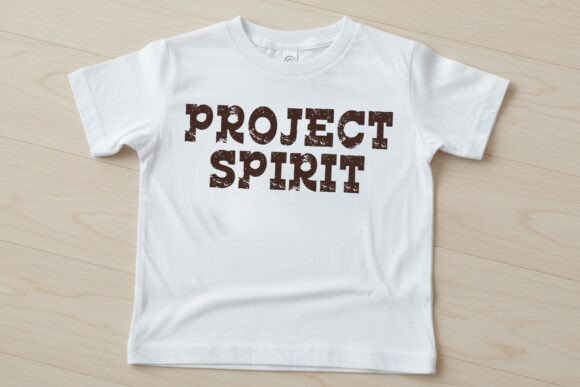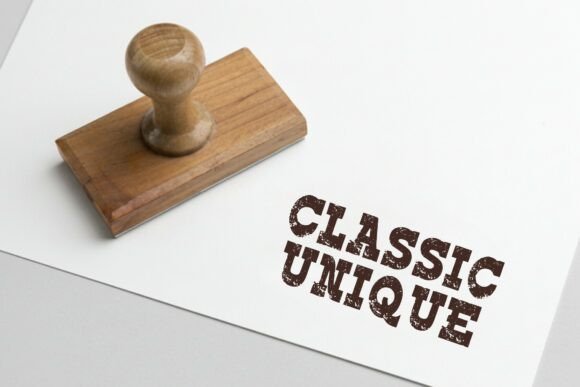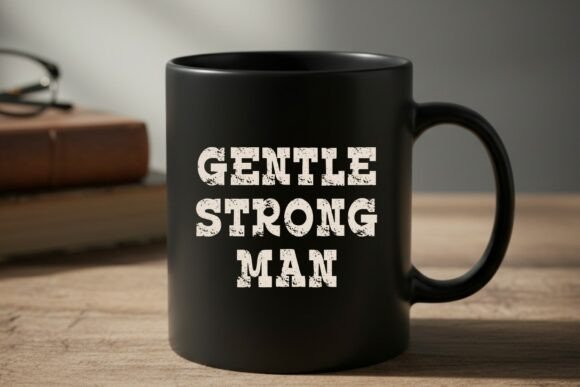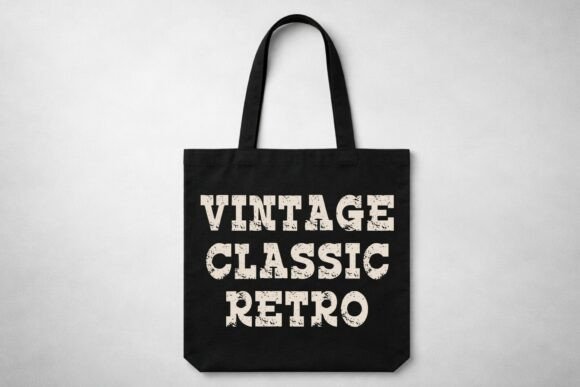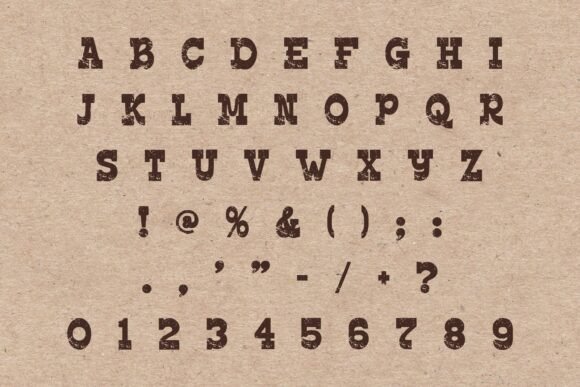
Introduction to Retro Radeo Font
Retro Radeo is a bold vintage display font inspired by classic western typography and rugged cowboy aesthetics.
Featuring a strong slab-serif structure combined with a distressed, weathered texture, this font brings an authentic retro feel to any design Perfect for branding, logos, posters, t-shirt designs, packaging, signage, and rustic-themed projects, Retro Radeo delivers a powerful and nostalgic visual impact.
Key Features of Retro Radeo Font